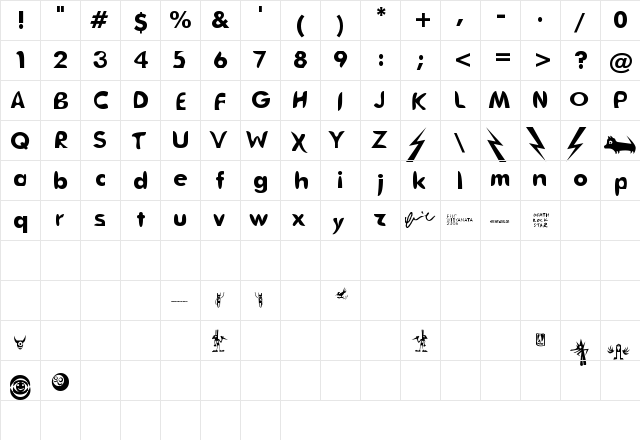
DeathFuturist Regular
Design Context for DeathFuturist Typeface
DeathFuturist carries an unsettling edge — its distorted letterforms are built to unsettle, perfectly suited to horror, Halloween, and dark creative work.
Ideal for Halloween projects, horror film titles, haunted house signage, and dark editorial design.
Font Pairing: Pair with a clean neutral sans-serif for body copy to let DeathFuturist's character lead without overwhelming the composition.
Pro Tip: DeathFuturist works best as a headline or focal element. Pair it against plain, neutral body text to amplify the contrast.